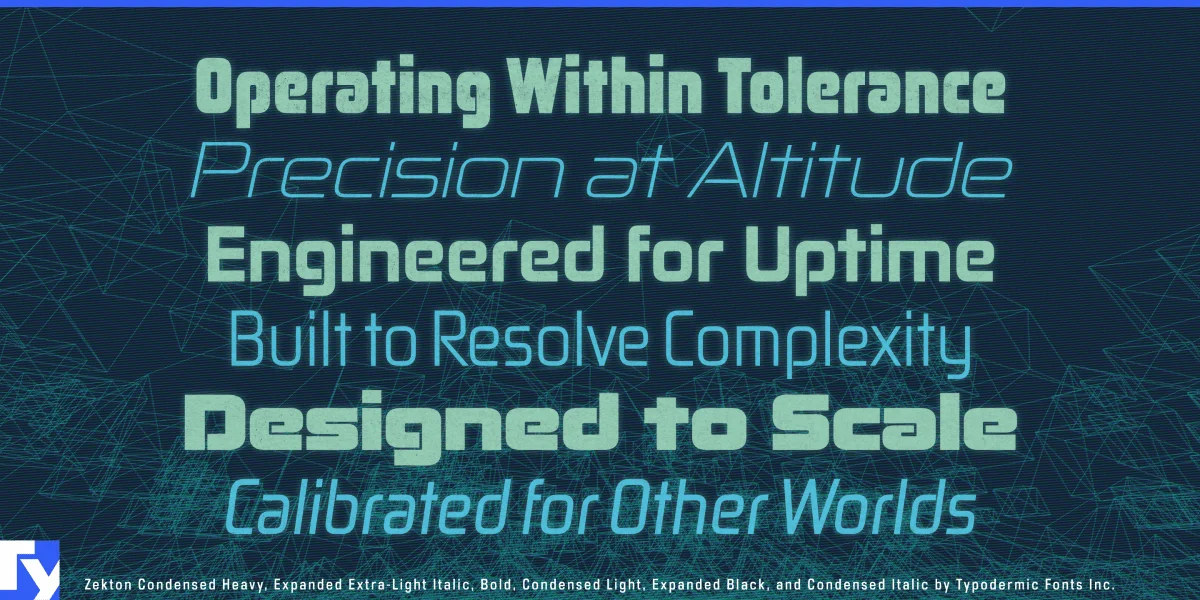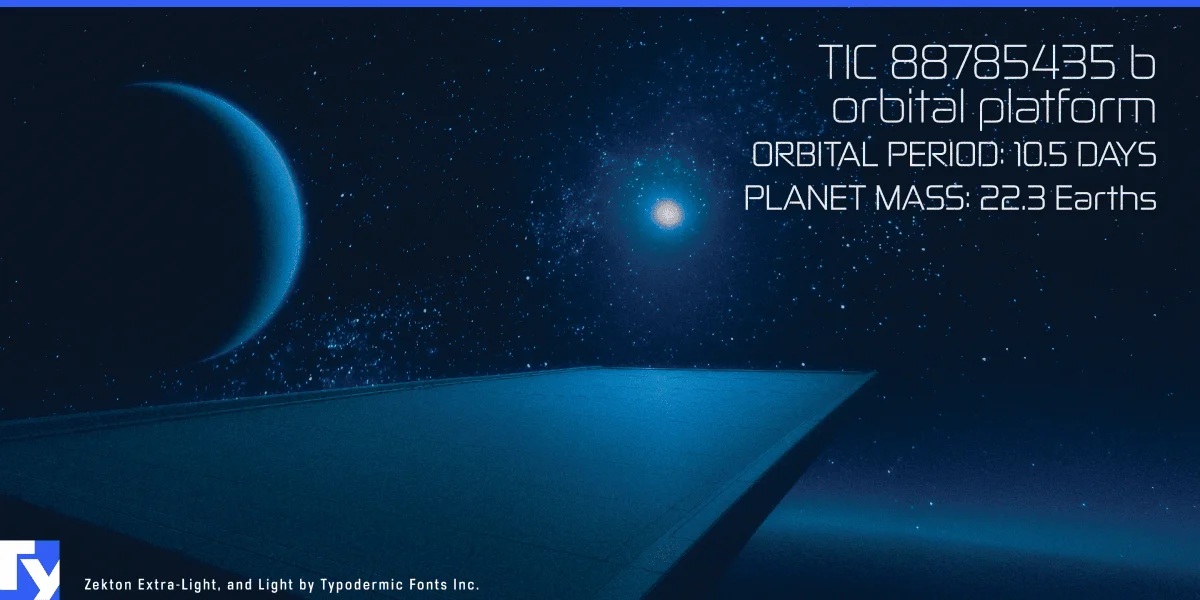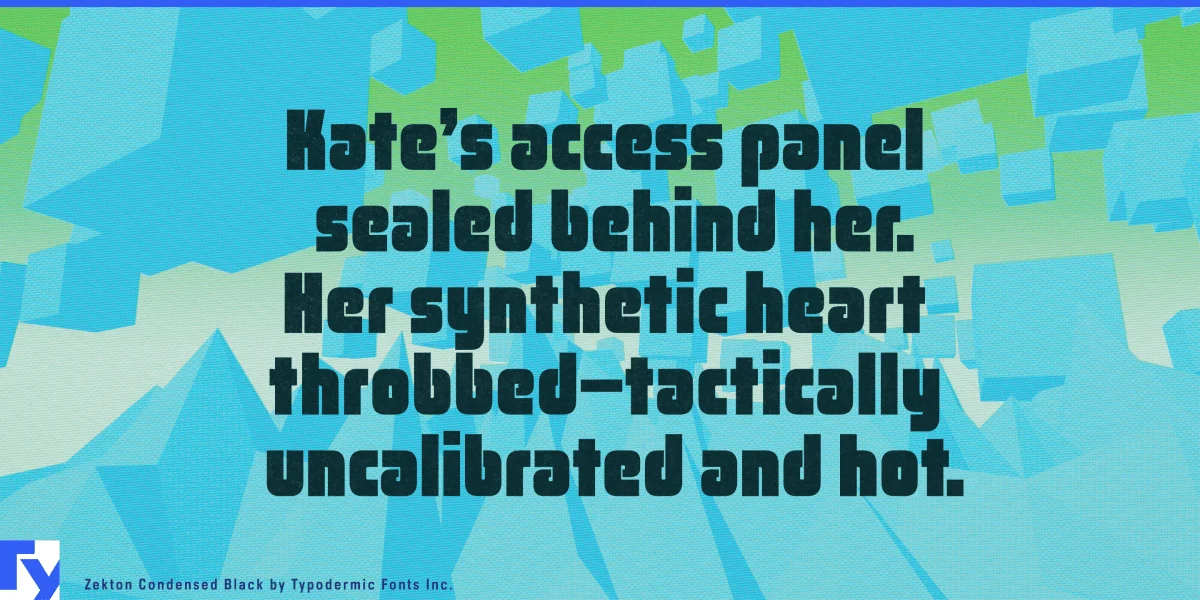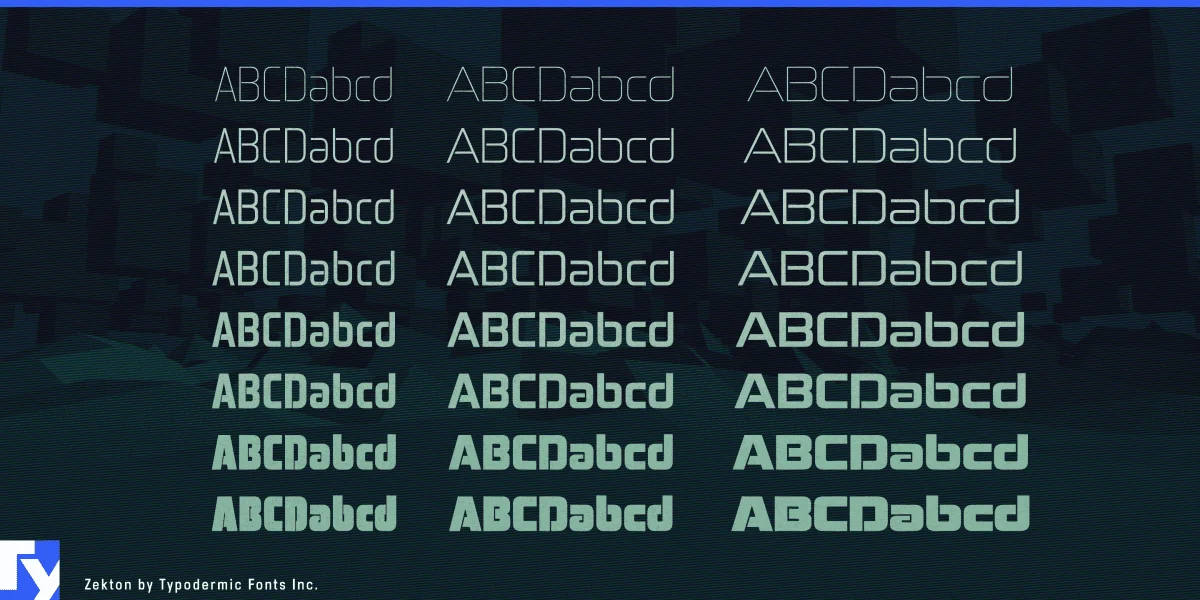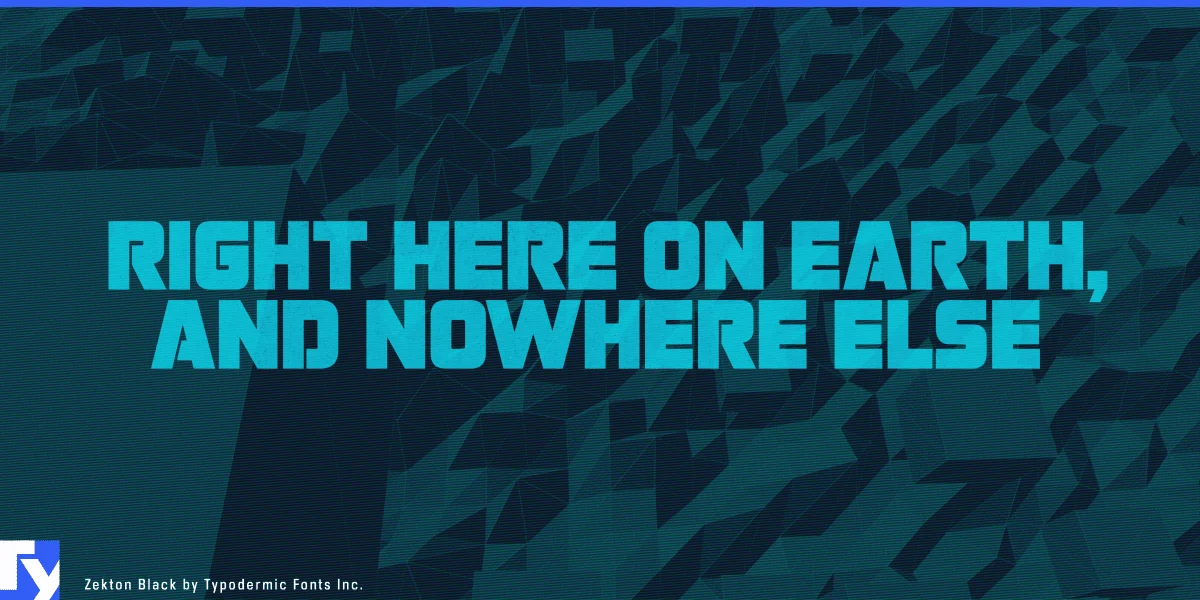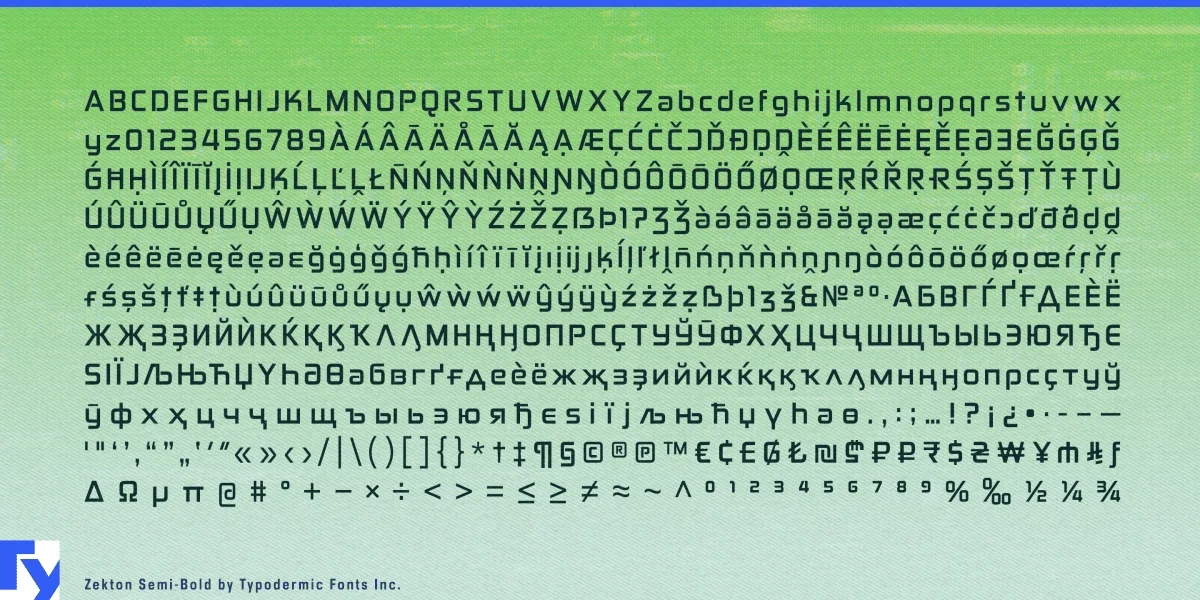
Zekton is the language of high technology rendered in type. Its square, modular curves and precise rhythm make it feel equally at home on a spacecraft interface or a fintech dashboard. Designed for clarity under pressure, Zekton is a system font for worlds that don’t yet exist.
The family spans eight weights, two widths, and italics, giving you forty-eight ways to dial in the right balance of presence and restraint. That flexibility makes Zekton as effective for dense, data-rich environments as it is for commanding headlines.
It thrives in technology branding—AI labs, robotics firms, aerospace startups—where a confident, engineered tone is essential. Gamers and esports teams lean on its aggressive stance for logos, UI, and streaming overlays. Filmmakers and media creators use it for sci-fi title sequences or dystopian interface graphics. And in the physical world, Zekton finds a place on packaging for electronics, signage at science centers, and displays at innovation summits.
Extensive language support, including Cyrillic, ensures Zekton speaks globally. It’s a typeface for the digital now and the engineered future: precise, versatile, and ready to adapt wherever technology pushes design next.